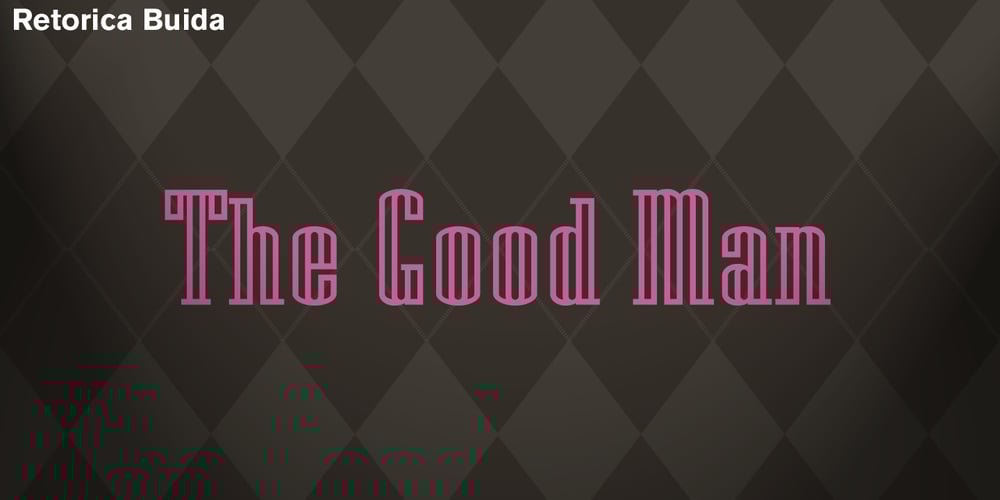
Retorica Font Family was designed by Enric Jardí and published by Type-Ø-Tones. Retorica contains 2 styles and family package options. Retorica, by Enric Jardí. With its simple geometry, Retorica stands out as our Art Déco typeface. Retorica has two styles: one solid version and one hollowed. In addition, each one has a Small Caps set, available by OT features.